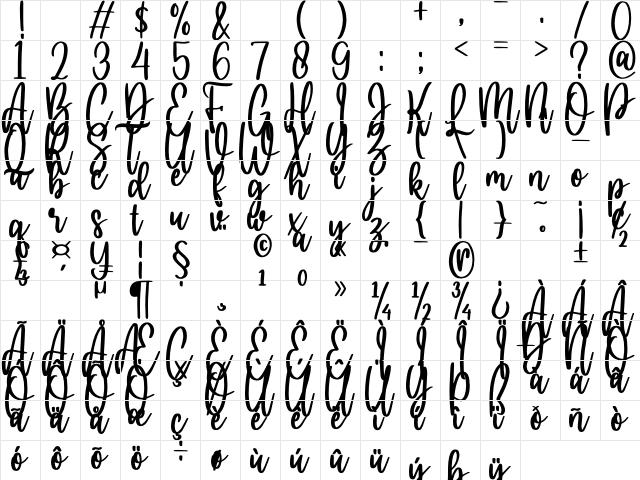
hello bella Regular
Regular ·  Siti Nurjanah ·
DesignerSiti Nurjanah
Design Context for hello bella Typeface
hello bella is a composed and adaptable typeface that performs quietly and consistently across a wide range of design contexts.